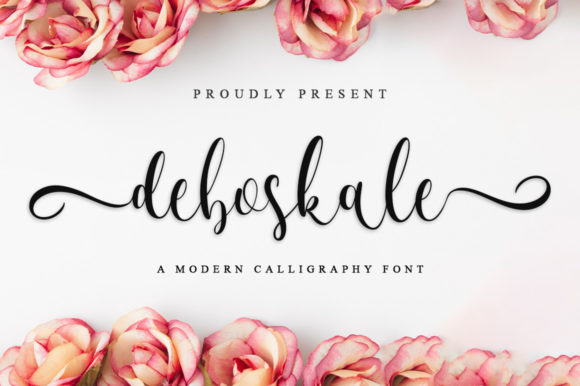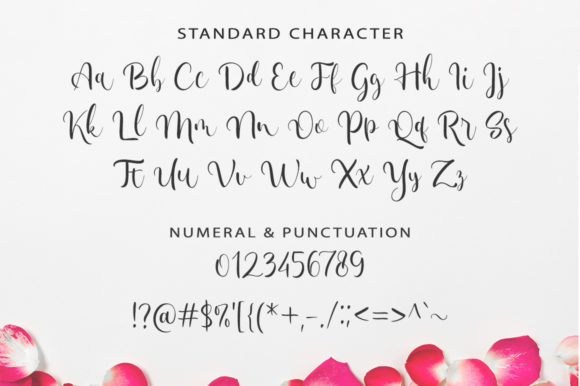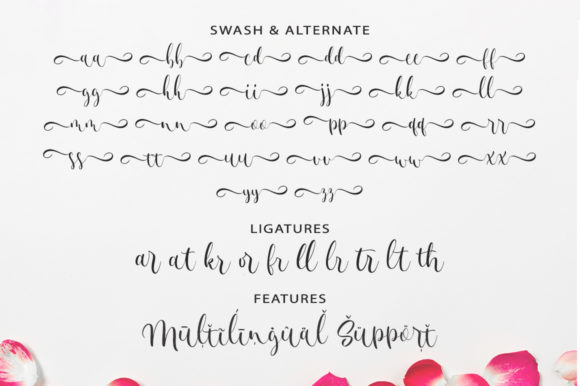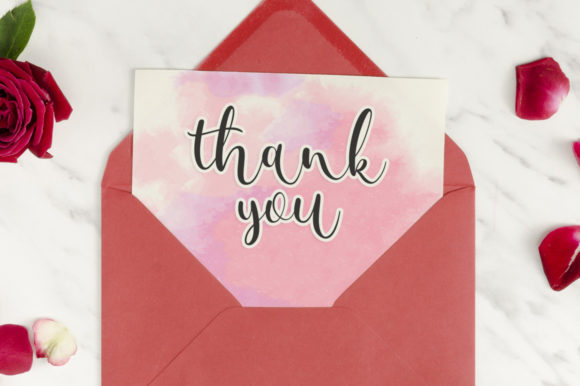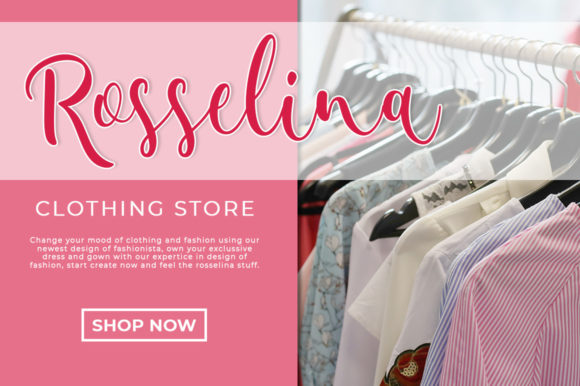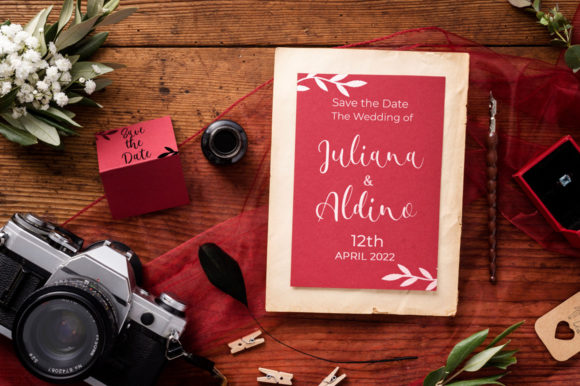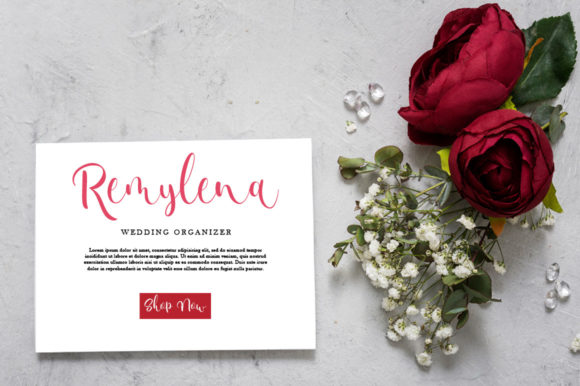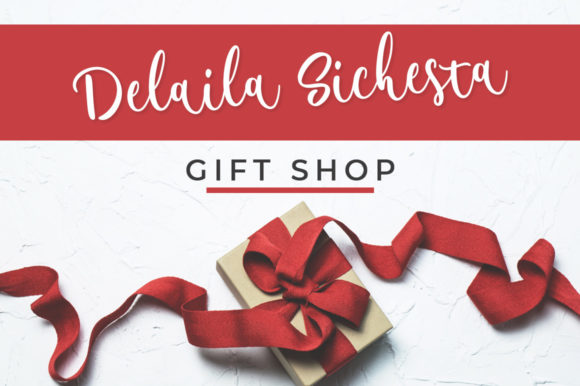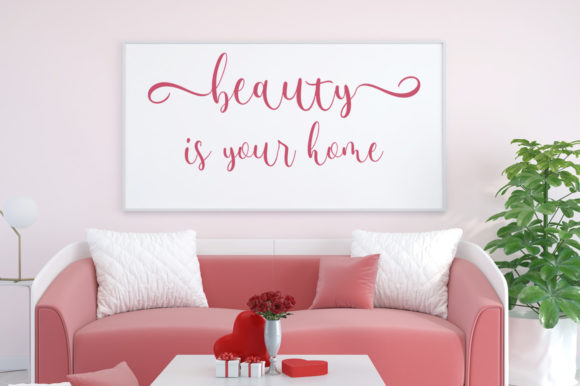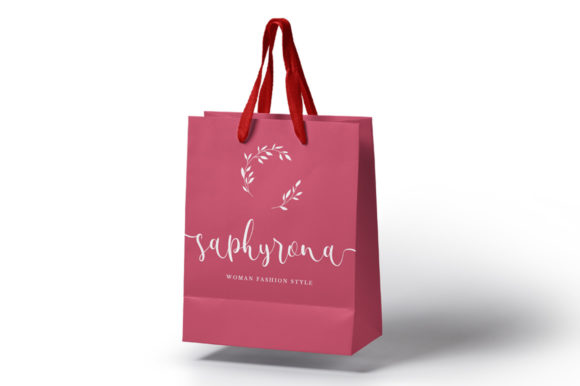
Deboskale Script Font
About Deboskale Script Font
Deboskale Script is a flowing handwritten font, described by an elegant touch, perfect for your favorite projects. This font is PUA encoded which means you can access all of the glyphs and swashes with ease!